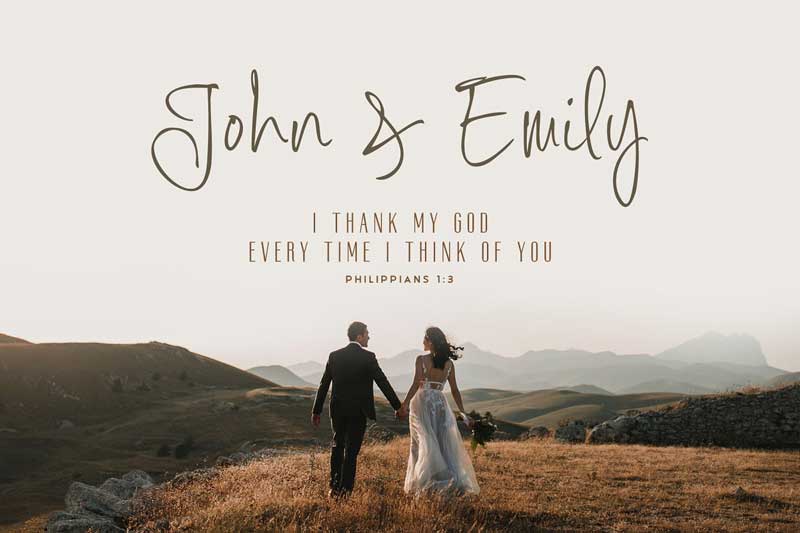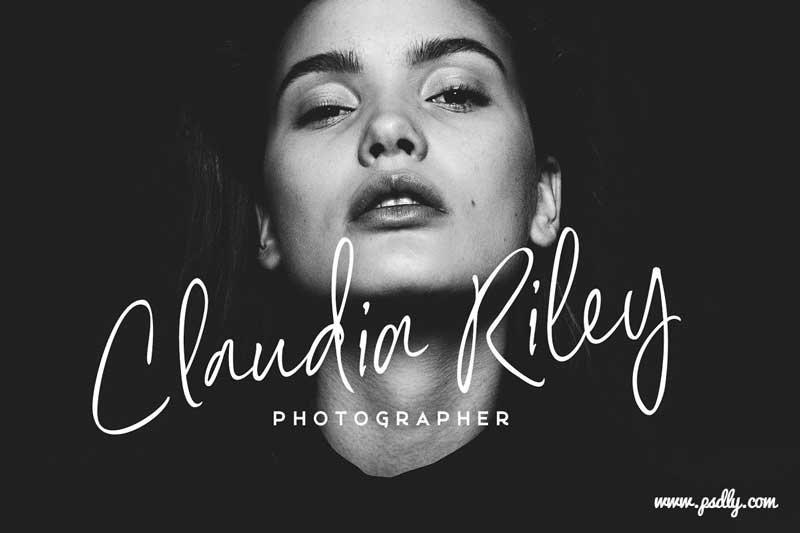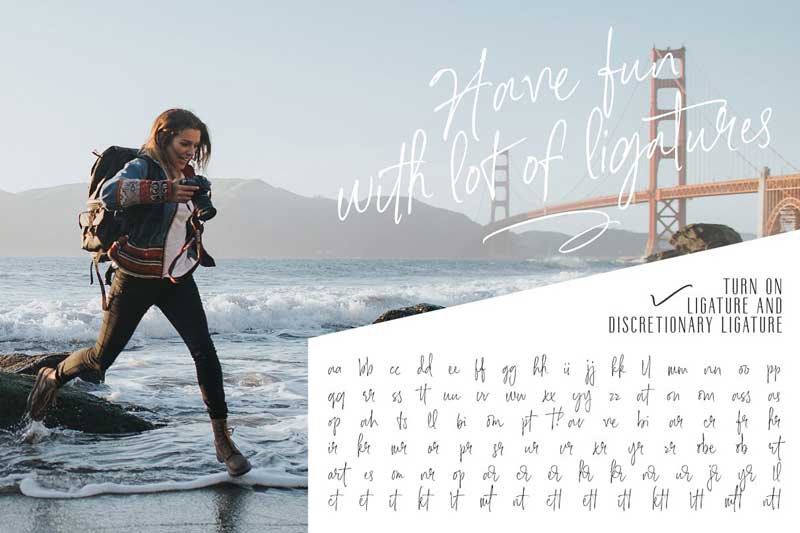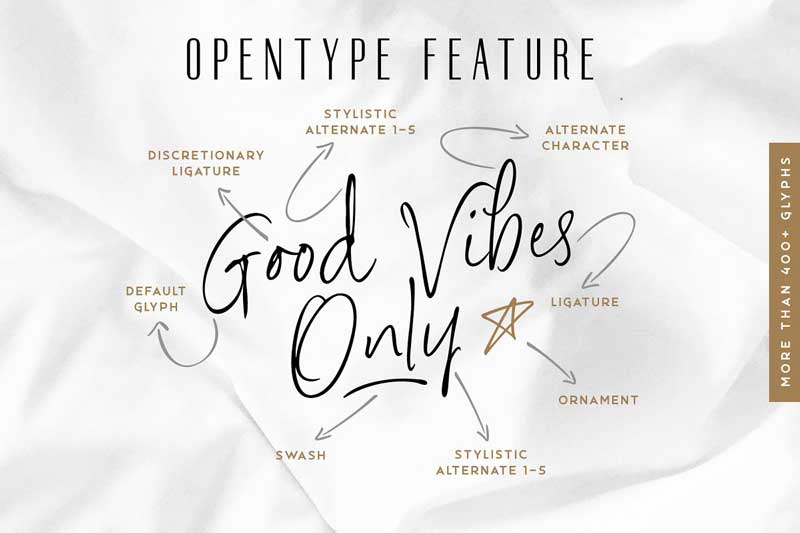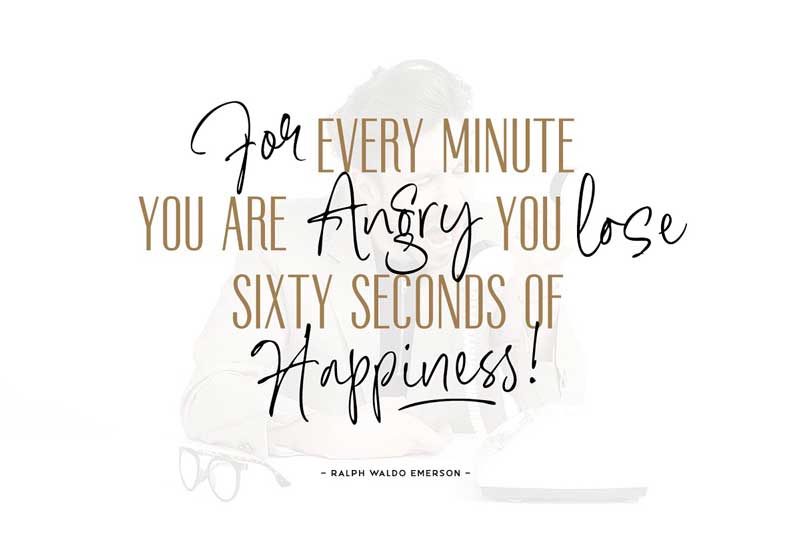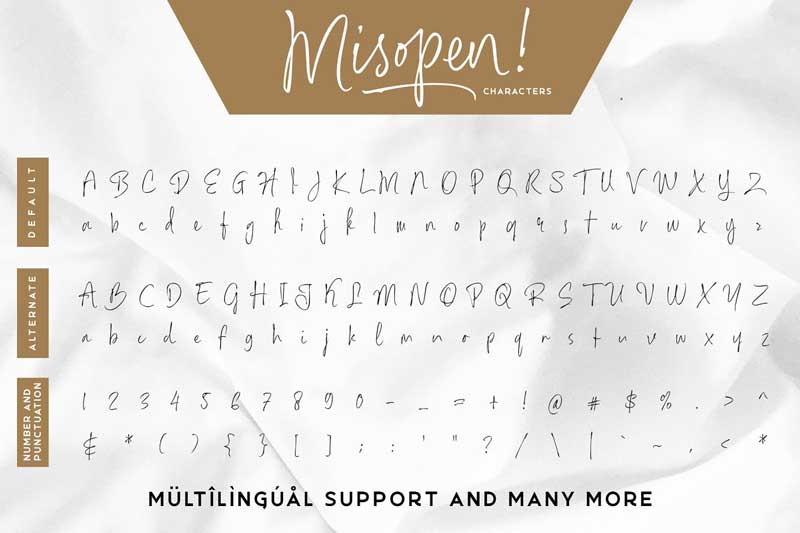
Misopen is a handwriting script font with a unique, casual and beautiful style. Misopen was made using a calligraphy pen with a fine nib. The process of making this font by writing a lot of sample letters and trying to make it connect naturally or using the OpenType feature called “ligature”.
Misopen works really well with sans serif or serif fonts. On this occasion, I tried to juxtapose it with my latest font “Brobrq” and the results are good. You can see the results on the poster.
Brobrq is a condensed sans serif with a modern style. Brobrq is my upcoming font and will have 4 weight that is light, regular, bold, and black. Stay tuned to get the info.
Rockyeah Sans is all caps geometric sans serif that focuses on legible, clean and useful for any project. This sans is an interpretation of Rockyeah Serif with the same caps height and bold stroke.
Misopen, Brobrq & Rockyeah Sans support multilingual & OpenType features, that can allow you to choose a character that you like and suitable for the project you’re working on.
Each letter of this font trio was made with love and designed to work well on the design like invitation, wedding, signature, clothing, photography, branding, album covers and etc. Just try it yourself 🙂